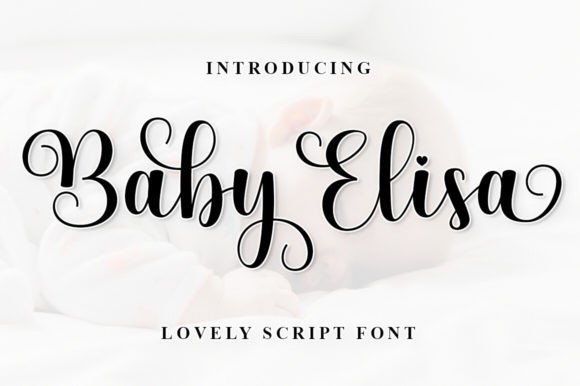
When Words Become Art: The Beauty of Handwritten Typography
Have you ever sat down with a pen and paper, letting the flow of your thoughts guide the strokes of your handwriting? It’s a moment of pure creativity, where the ordinary becomes extraordinary. As designers, we’re constantly searching for ways to infuse our work with this same sense of personality and charm. That’s where fonts like Baby Elisa come in – a modern calligraphy design that brings a touch of elegance to any project.
Perfect for logos, product packaging, and even wedding invitations, the Baby Elisa Font is a versatile tool that can elevate your designs from ordinary to extraordinary. With its casual, beautiful style and swashes, this font is a valuable addition to any designer’s toolkit. Whether you’re working on a branding project or a simple quote, the Baby Elisa Font is sure to add a touch of sophistication and whimsy to your work.
Baby Elisa Font Key Features
- Unique Characteristics: Hand-drawn design with playful, cursive style; includes uppercase and lowercase letters, numbers, and punctuation
- Language Support: Multilingual support, including Latin-based languages and some Cyrillic languages
- Font Family: Baby Elisa Font is part of a larger font family, offering a range of styles and weights
Designer Review: Baby Elisa Font
Overall, I’m quite impressed with the Baby Elisa Font. Here’s what I like:
- ✨ Beautiful, playful, and whimsical feel: The font is perfect for creating a child-friendly atmosphere, whether it’s for a children’s book, a nursery, or a toy brand.
- ✨ Wide range of language support: Baby Elisa Font includes support for over 200 languages, making it a great choice for international brands and projects.
- ✨ Easy to read: Despite its playful nature, the font is still easy to read, even at small sizes.
However, there are a few limitations:
- ⚠️ Limited font weights: Baby Elisa Font only comes in a few font weights, which might limit its use in certain situations, such as for titles or headings.
- ⚠️ Not ideal for body text: While the font is great for headlines and titles, it’s not the best choice for body text, as it can be a bit too ornate and distracting.
Overall, I think Baby Elisa Font is a great addition to any designer’s toolkit. Its unique feel and wide language support make it perfect for a variety of projects, but its limitations should be taken into account when choosing the right font for the job.
Getting the Most Out of the Font
For optimal results, use the Baby Elisa Font in combination with a soft, pastel color scheme and minimalist design elements.
Experiment with different font sizes and styles to create a visually appealing and balanced design.
The Baby Elisa Font is ideal for:
- Infant and toddler product branding
- Whimsical and playful social media graphics
Alternatives to Baby Elisa Font
The Baby Elisa Font is a popular font for designers, but there are other options available that can provide similar or unique features. Here are a few alternatives to consider:
Great Vibes is a modern script font that is perfect for adding a touch of elegance to your designs. It’s ideal for use in wedding invitations, greeting cards, and other creative projects. Unlike Baby Elisa Font, Great Vibes has a more flowing and organic feel, making it suitable for designs that require a more dynamic look.
Carolyna Pro is a stylish script font that is designed for use in a variety of applications, including branding, advertising, and packaging. It has a more refined and sophisticated look compared to Baby Elisa Font, making it suitable for high-end designs. Carolyna Pro is also highly customizable, allowing you to adjust the font to fit your specific design needs.
Alex Brush is a beautiful script font that is perfect for use in creative projects, such as book covers, posters, and social media graphics. It has a more rustic and handwritten feel compared to Baby Elisa Font, making it suitable for designs that require a more personal touch. Alex Brush is also highly versatile, allowing you to use it in a variety of contexts, from formal to informal designs.
Can I customize the Baby Elisa Font for my specific design needs?
Yes, the Baby Elisa Font is a highly customizable font, allowing you to adjust various parameters such as font weight, italic, and bold styles. You can also use font editing software to modify the font’s characteristics, such as kerning and spacing, to suit your design requirements.